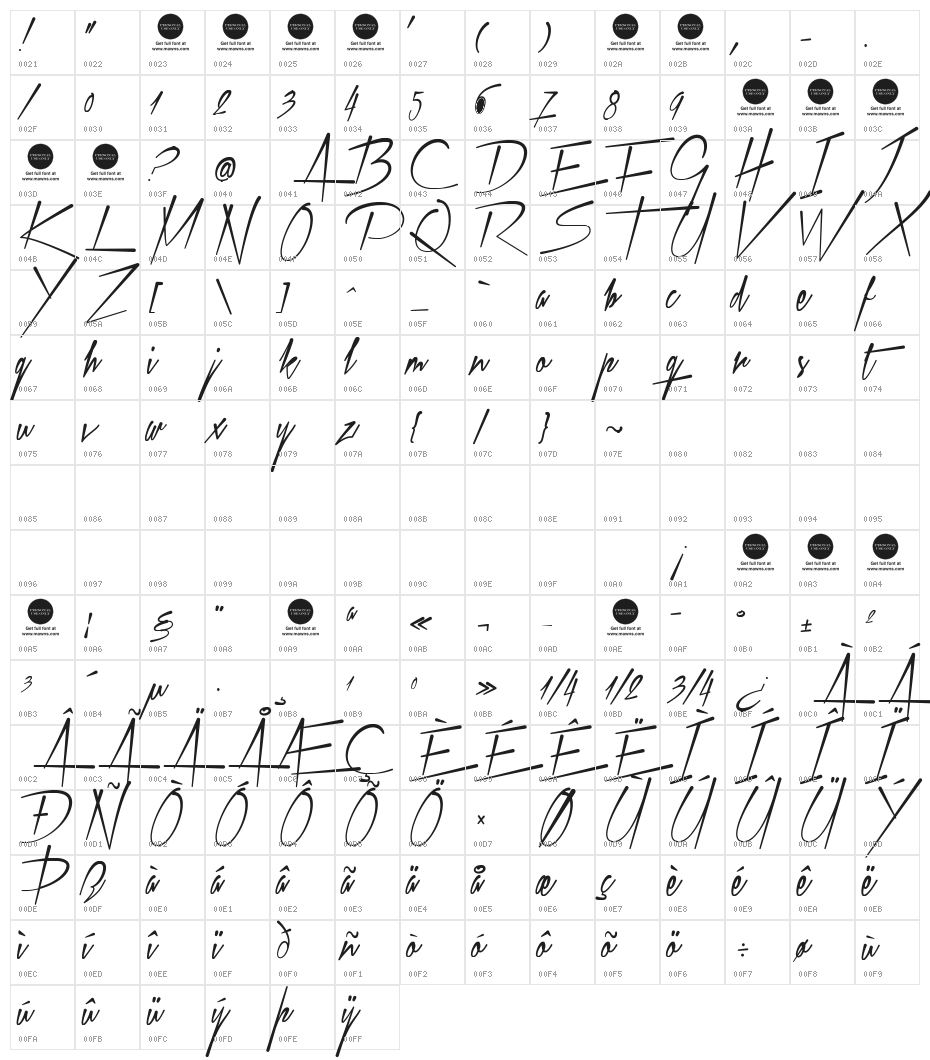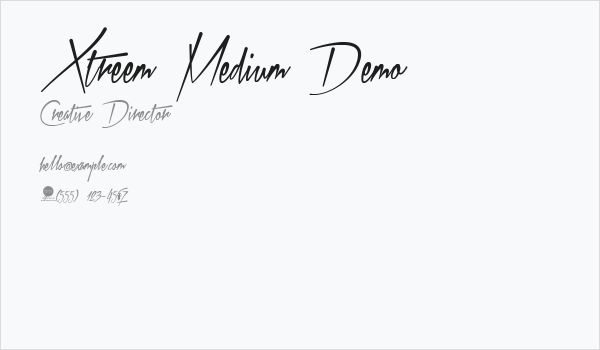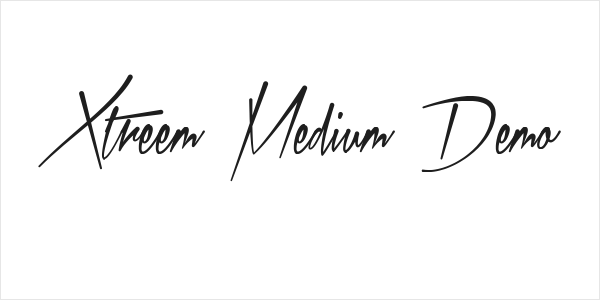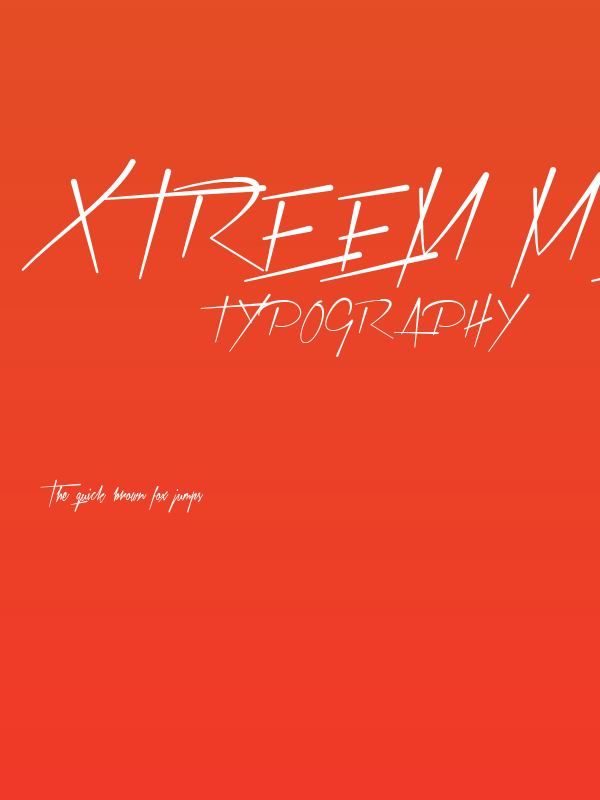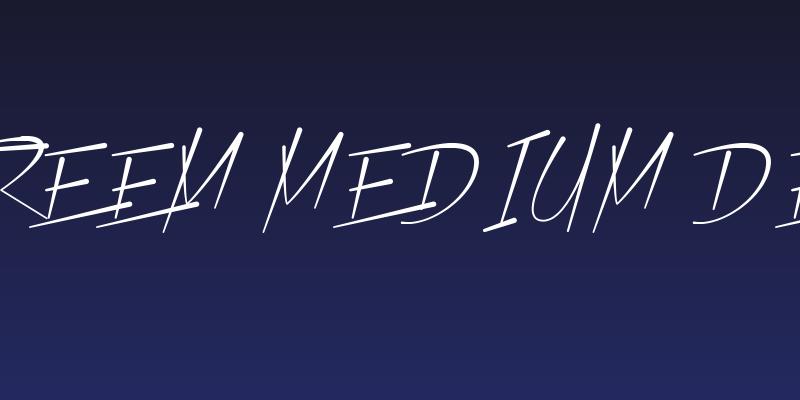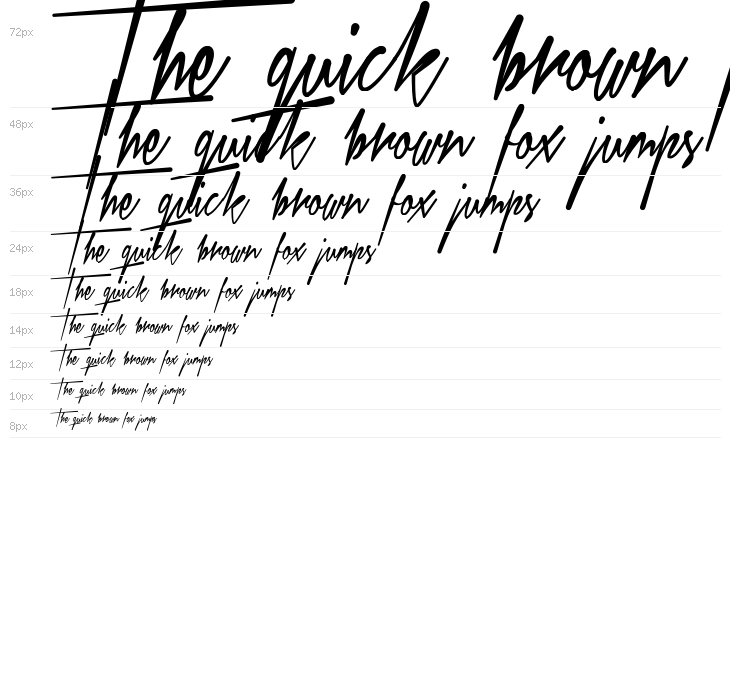
Xtreem Medium Demo Font
Xtreem Medium Demo Description
This font features a dynamic and expressive handwritten style, characterized by its fluid and energetic strokes. The uppercase letters are slightly slanted, giving a sense of motion and spontaneity, while the lowercase letters maintain a consistent flow with varying stroke widths. The numerals are bold and slightly exaggerated, adding to the font's overall lively appearance. Special characters are integrated seamlessly, maintaining the font's unique personality. This font is ideal for projects that require a personal touch or a creative flair.
| Proposed Projects | Ideal for branding, invitations, greeting cards, and artistic projects that require a personal and creative touch. |